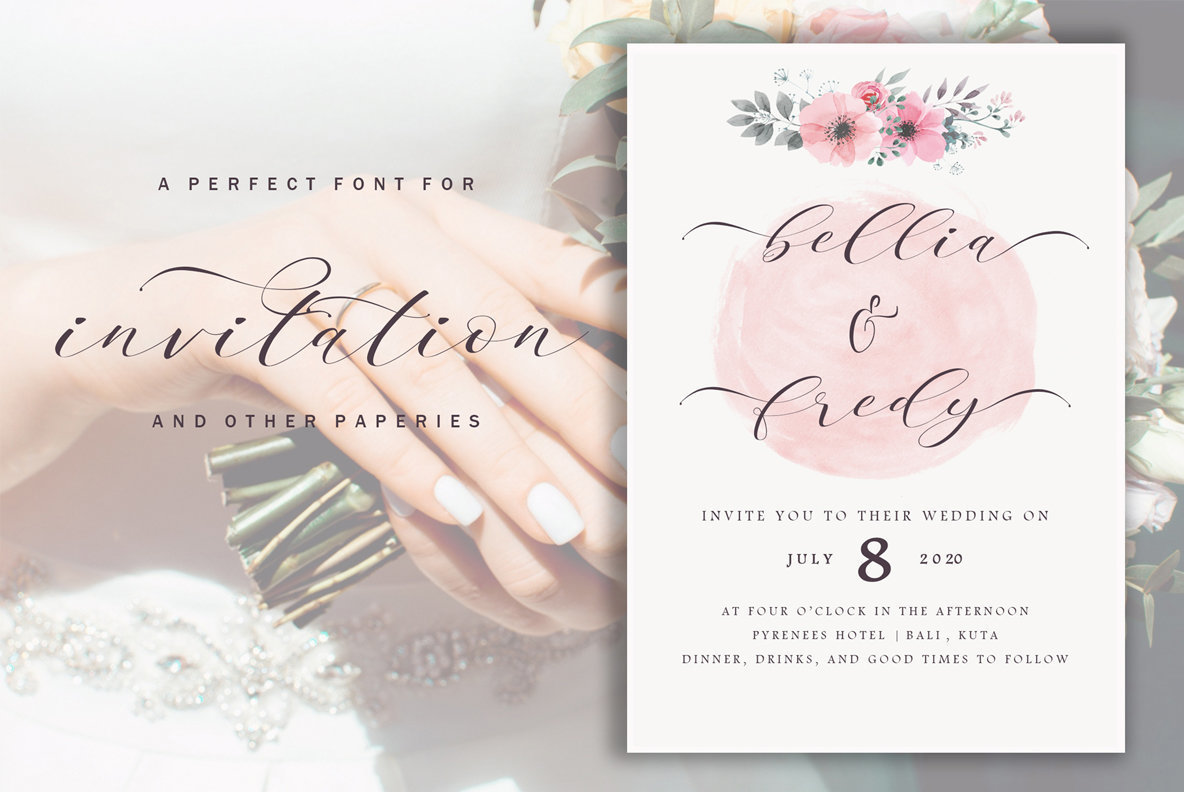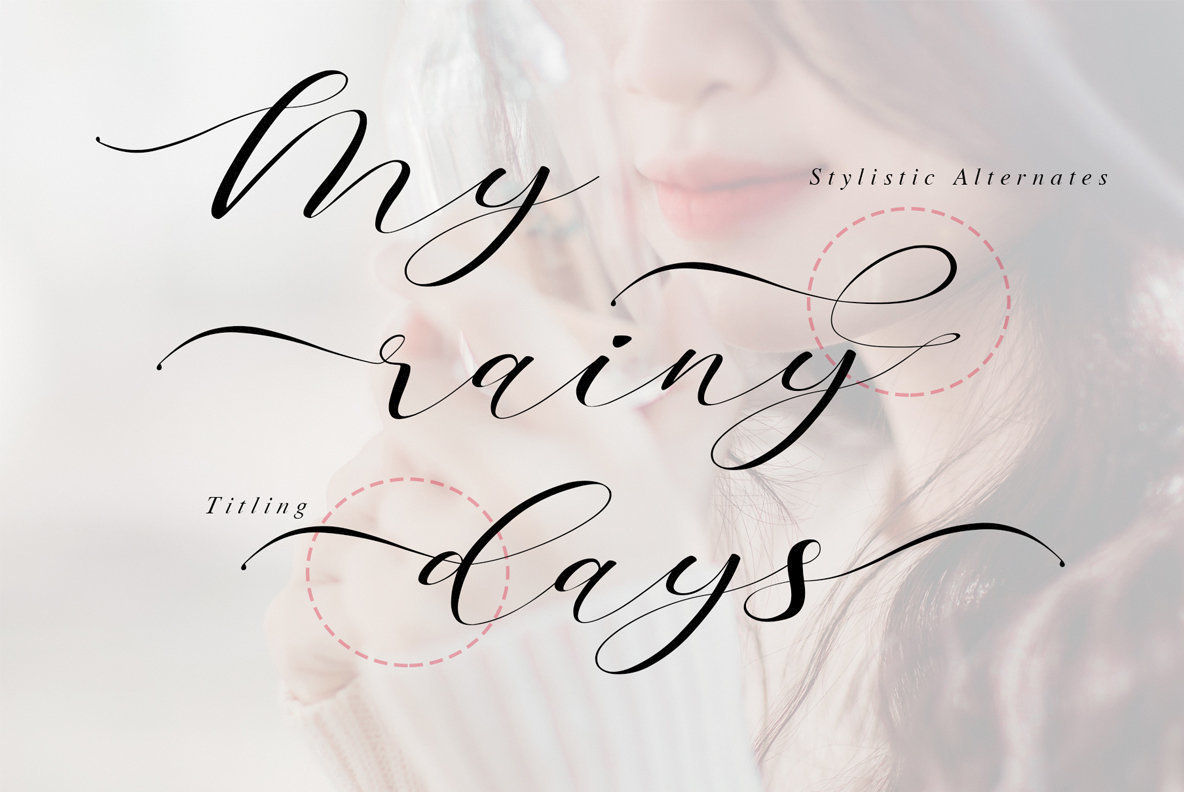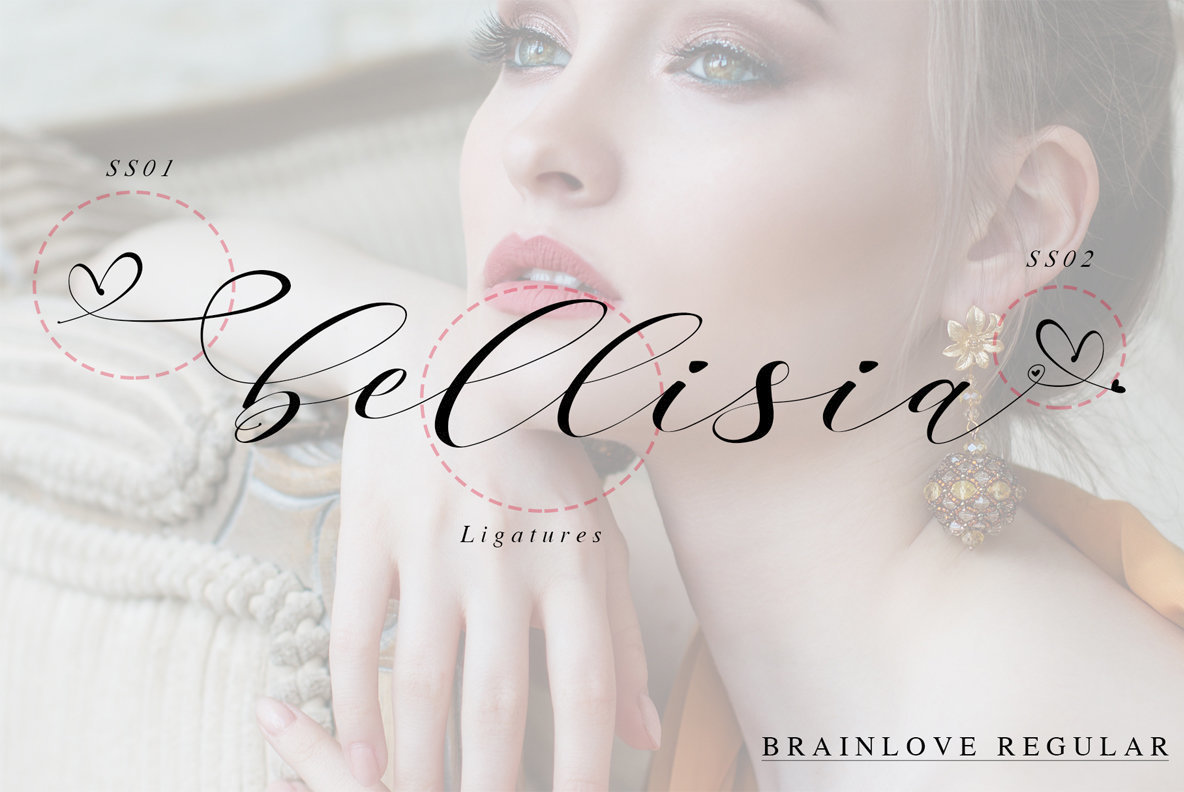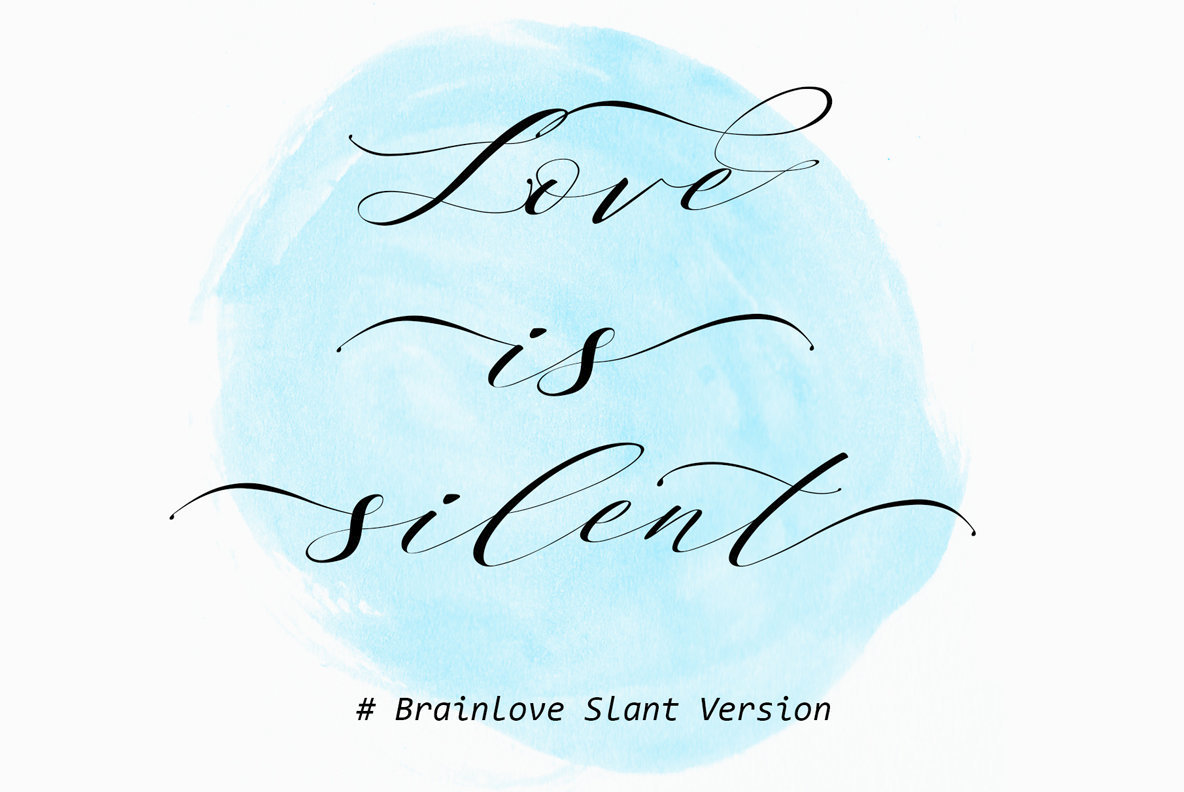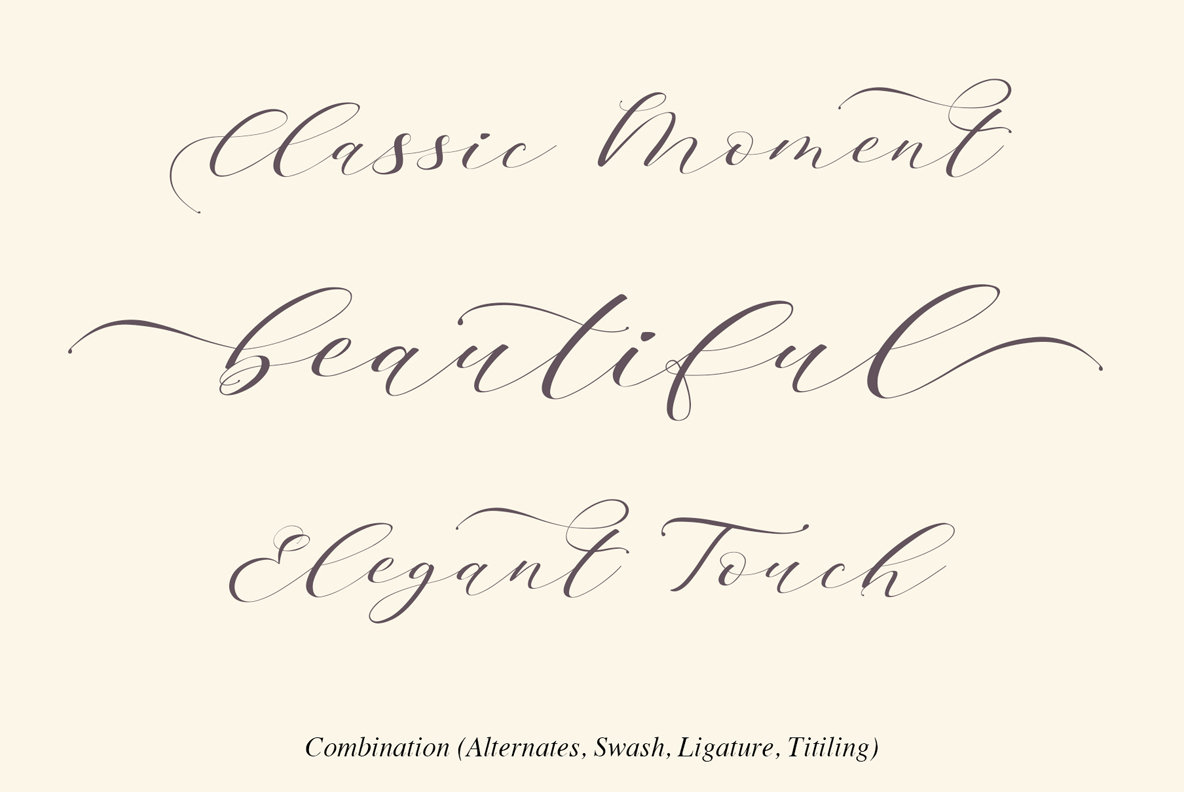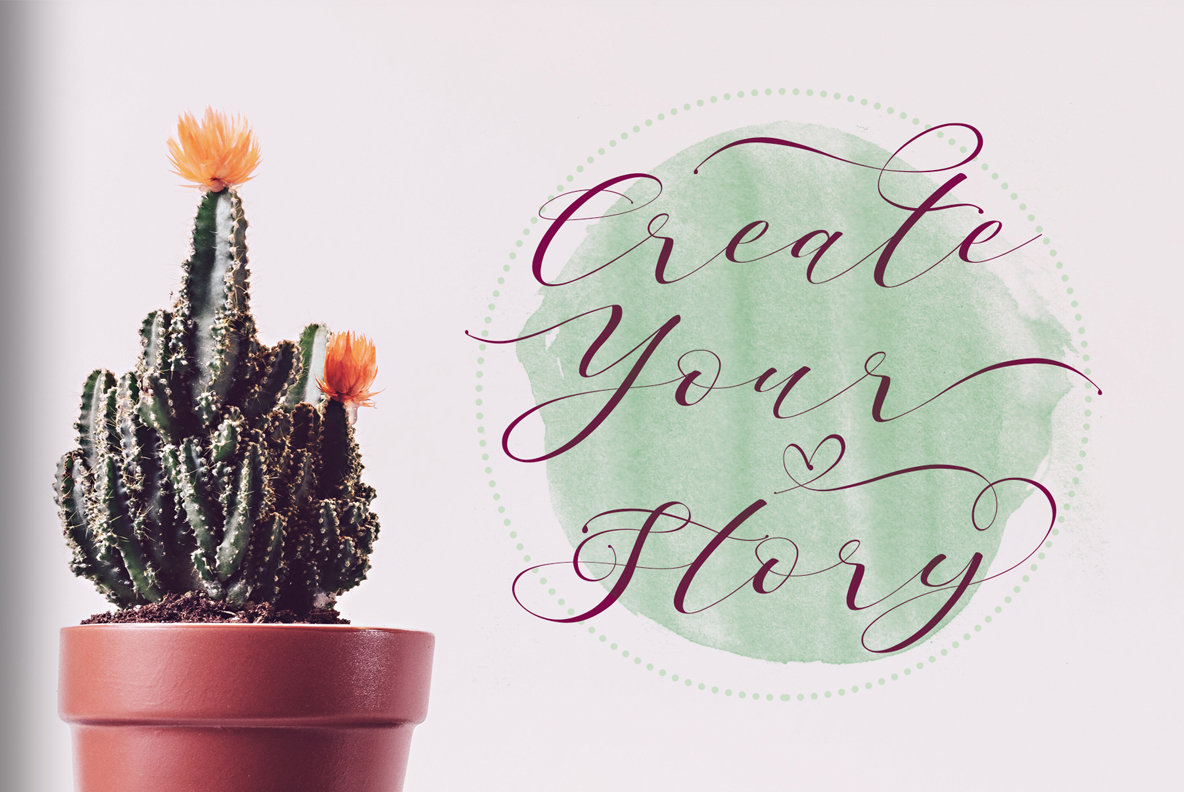
Brainlove Font
Brainlove by Alde Saputro is a sophisticated script that combines elegance with a modern flair. Its fluid strokes and varying baselines create a graceful appeal, making it an ideal choice for designers seeking to infuse their projects with a classic yet contemporary touch. Whether you're crafting logos, wedding invitations, signage, or apparel, Brainlove performs beautifully across a myriad of applications. Inject a sense of sophistication into your work with this versatile and stylish font choice.Brainlove: A Refined Calligraphy Script